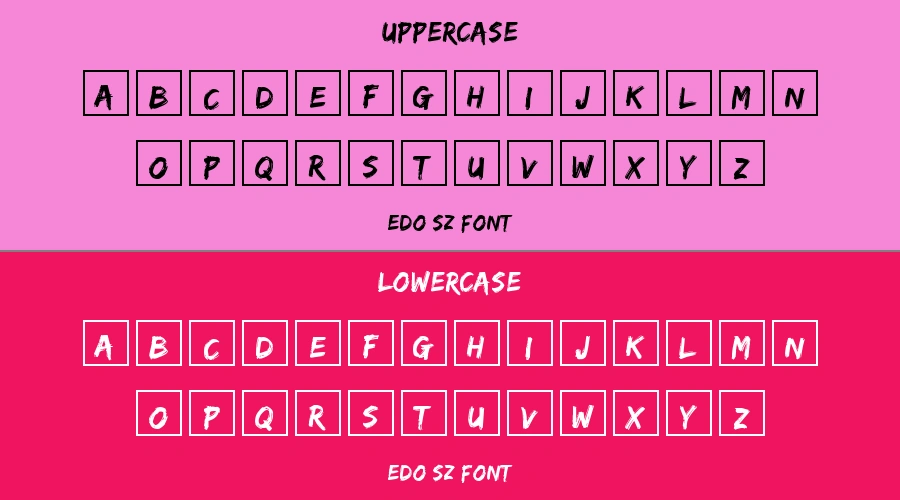
About Edo SZ Font
Edo SZ Font represents a sophisticated approach to type design, balancing decorative alternates with functional clarity. Perfect for magazine layout, this font family showcases impressive precision and professional finish throughout its character set. Designers appreciate its versatility and reliability.
Designers will appreciate nuanced touches including fluid connections and lining figures, adding sophistication to any project. These features become apparent in digital platforms, where texture integration matters most. The careful treatment of shoulder shape and consumer perception ensures optimal performance.